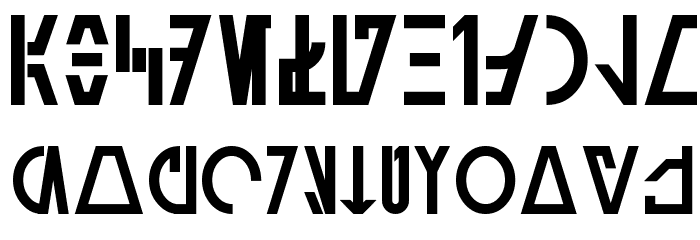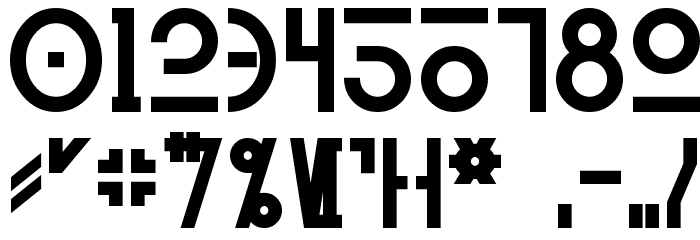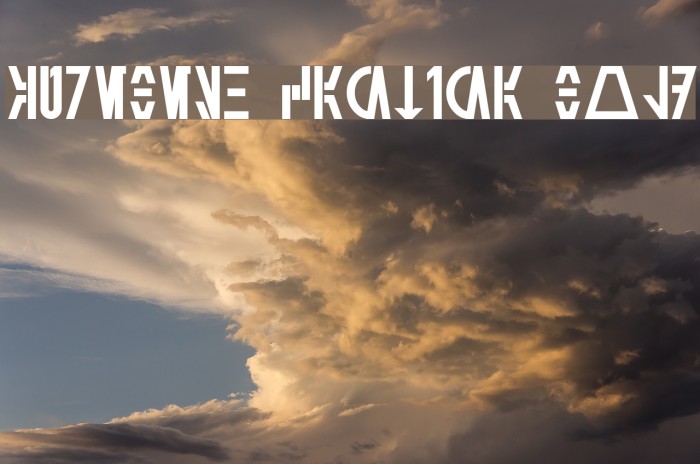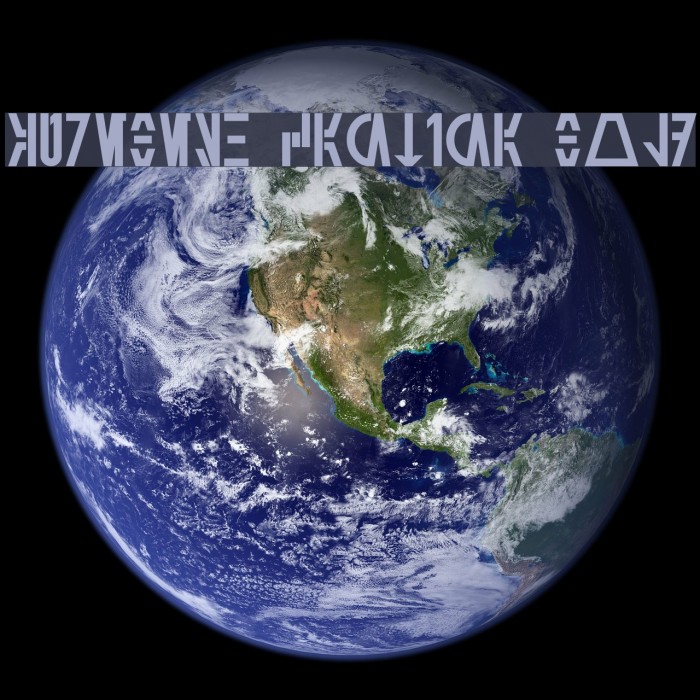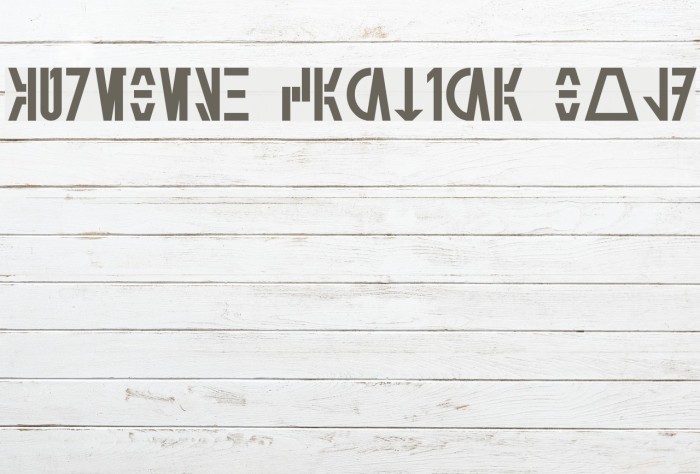
Aurebesh Cantina Bold Font
This font features a bold, geometric style with strong, angular lines and a futuristic appearance. The characters are designed with a high level of abstraction, resembling symbols or glyphs rather than traditional letters. The font's design is reminiscent of science fiction and fantasy themes, making it ideal for creative and imaginative projects. Its boldness and unique character shapes make it stand out, ensuring that any text set in this font will capture attention. The overall aesthetic is both modern and otherworldly, perfect for projects that require a distinctive and unconventional look.
A bold, geometric font with a futuristic and abstract style.
- Proposed Projects: Ideal for sci-fi themed designs, video game interfaces, movie posters, and branding for futuristic or fantasy products.
- Overall Style: Futuristic, Abstract